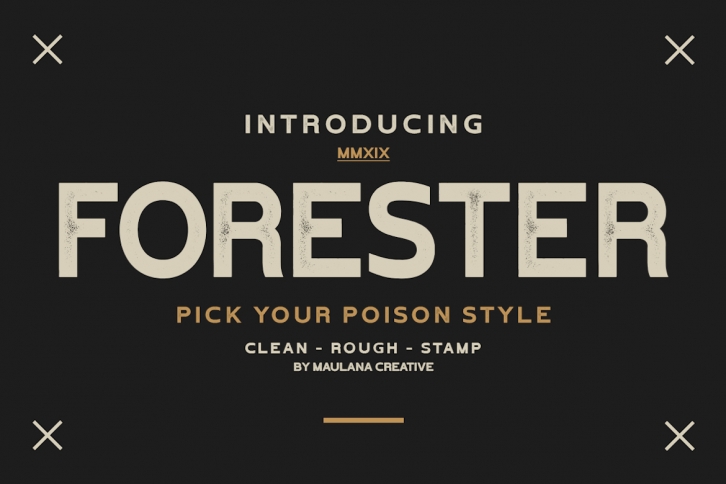
Forester Vintage Sans Serif is a beautiful font that was designed by Maulana Creative. It's a great choice for designers and creatives who need such a font. It was released on May 8, 2019 and the file size is 13.41 MB. Forester Vintage Sans Serif may give a more youthful, expressive and casual look to your project. It is a very beautiful, refined, elegant, and high-quality font.